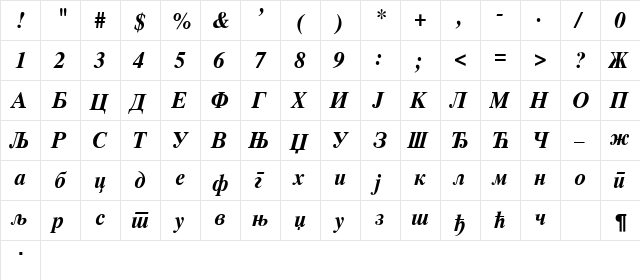
Times Cirilica Bold Italic
Design Context for Times Cirilica Typeface
Times Cirilica takes a measured approach to typography — its balanced proportions and neutral character make it a reliable workhorse for both digital and print work. The dynamic lean of this cut emphasises speed and emphasis in any layout. The heavy weight commands attention and anchors typographic hierarchies.
Pro Tip: Use Times Cirilica for emphasis, pull quotes, and subheadings where its slanted energy can add rhythm to the layout.